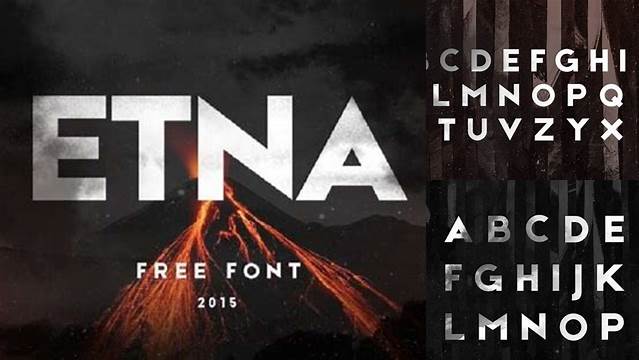
Are you looking to spice up your designs with a touch of elegance and modern flair? Then look no further than the Etna Font! This versatile typeface is a fantastic choice for various projects, from website headers to printed materials. In this comprehensive guide, we'll dive deep into everything you need to know about the Etna Font, including how to get your hands on it through a free download, explore its characteristics, and uncover some creative ways to use it. So, grab your favorite beverage, kick back, and let's explore the world of Etna Font free download!
1. Understanding the Allure of the Etna Font
Hey guys, before we jump into the nitty-gritty of downloading the Etna Font, let's talk about what makes this font so darn appealing! The Etna Font is a modern sans-serif typeface that boasts clean lines, a contemporary feel, and a touch of sophistication. It's designed to be highly readable, making it perfect for both headlines and body text. One of the key features that make the Etna Font stand out is its versatility. Whether you're working on a sleek website design, crafting eye-catching marketing materials, or simply want to add a touch of class to your personal projects, the Etna Font has got you covered. The font's design is typically described as geometric and minimalist, allowing it to blend seamlessly with various design styles. Its balanced proportions and subtle details create a visually pleasing aesthetic that's both timeless and modern. The designers of the Etna Font have clearly focused on creating a typeface that is both functional and beautiful. This dedication is evident in its well-defined letterforms and consistent spacing, which contribute to its overall readability and visual appeal. Choosing the right font can dramatically impact how your message is received. Using the Etna Font can help create a sense of professionalism, modernity, and trustworthiness. It's the kind of font that quietly elevates your designs without being overly flashy or distracting. Understanding these nuances can help you make a more informed decision about how and where to use the Etna Font in your projects. In essence, the Etna Font is more than just a collection of letters and symbols; it's a design tool that empowers you to communicate your ideas with clarity, style, and sophistication. The decision to use this font can give you a visual advantage over other fonts. So when you start the process of getting the Etna Font free download, make sure you are ready to use it to its full advantage.
3. Etna Font Characteristics: What Makes It Unique?
So, what exactly makes the Etna Font stand out from the crowd? Let's dive into its key characteristics. Firstly, it’s a sans-serif typeface, which means it doesn't have the small decorative strokes (serifs) at the ends of the letters. This gives it a clean, modern look. The Etna Font is characterized by its geometric shapes and balanced proportions. The designers of the font have carefully considered the structure of each letter, ensuring that they are visually harmonious and easily readable. This attention to detail contributes to its versatility and suitability for a wide range of applications. One of the unique things about this typeface is its readability. It's designed with legibility in mind, making it perfect for both headings and body text. This means your audience can easily understand the information you're presenting. The font often has a slightly condensed appearance, which adds to its modern feel. The subtle details, like the curve of the 'e' or the angle of the 'a', contribute to the font's overall personality and visual interest. It provides a sense of sophistication and elegance. The Etna Font is not overly stylized or flashy; it's understated and confident. This makes it a great choice when you want your message to be the focus, rather than the font itself. Finally, the versatility of the Etna Font is a huge plus. It adapts well to different design styles, from minimalist to more elaborate designs. From websites to posters to presentations, this font can be used across various platforms. The ability to adapt and evolve is a characteristic of the Etna Font free download that makes it a winner in today's design world.
4. Utilizing the Etna Font in Web Design
Guys, let's talk web design! The Etna Font can be a game-changer for your website's visual appeal and user experience. Its clean lines and modern aesthetic make it perfect for creating a sleek and professional website. When using the Etna Font in web design, consider using it for headings and subheadings. These larger text elements can instantly grab the viewer's attention and set the tone for your content. Pair the Etna Font with a more neutral body font for optimal readability. This will provide contrast while maintaining a cohesive design. Choosing the right font weight is critical. Experiment with different weights to find the perfect balance between visual impact and readability. For example, using a bold weight for headings and a regular weight for body text can create a clear visual hierarchy. The use of this font can give your site a professional look and feel. The font has a clean design that will help you create a professional impression. Another thing to consider is color contrast. The right color pairings can make the Etna Font even more impactful. Ensure that the font color contrasts well with the background color. This will improve readability. The font's adaptability also allows you to use it in multiple aspects of your site, such as navigation bars, call-to-action buttons, and other design elements. This helps maintain a consistent brand identity throughout your site. Implementing responsive design is crucial. The Etna Font should render well on all devices, from desktops to mobile phones. Test your website on different devices and screen sizes to ensure optimal readability and visual appeal. Don't forget about the user experience (UX). Think about how the font affects the way visitors interact with your site. Make sure the text is easily readable. A good user experience can boost your engagement and conversions. So before you decide to make the Etna Font free download, you should think about how the font is going to be used.
5. Etna Font for Print: Posters, Flyers, and More
Okay, let's shift gears and talk about print! The Etna Font is a fantastic choice for printed materials, such as posters, flyers, brochures, and business cards. Its clean and modern look translates well to print, making it an excellent choice for grabbing attention. When designing posters and flyers, the Etna Font can be used for headlines and key information. Its readability ensures that your message is easily understood. The font's versatility makes it suitable for various designs, from minimalist to more intricate layouts. For brochures, use the font for titles, subheadings, and body text. This creates a cohesive look and adds a touch of sophistication to your marketing materials. The Etna Font offers great flexibility, allowing you to make your print designs unique and memorable. Choosing the right font weight is important for print design, just like with web design. Choose font weights that stand out without compromising readability. In terms of color, consider the colors you are using in your printed materials. The Etna Font can be used with different colors to achieve a variety of moods and styles. If you're designing business cards, using the Etna Font can create a professional impression. It's clean lines and modern look can boost your credibility. The font can be used for your name, job title, and contact details. When designing printed materials, keep in mind the size and spacing of the text. Make sure the text is large enough to be easily read. Adjust the line spacing for optimal readability. Always do a test print. Before mass-producing your printed materials, print a sample copy to check the colors, fonts, and layout. This ensures everything looks perfect before you invest in a large print run. So after you get your Etna Font free download, consider all of the advantages.
6. Creating a Brand Identity with the Etna Font
Hey, have you ever thought about using a font to create your brand's identity? The Etna Font can play a significant role in establishing your brand's unique identity. Choosing this font can create a consistent visual experience for your audience. When using the Etna Font for branding, start by incorporating it into your logo, website, and marketing materials. This consistency helps reinforce your brand's identity and makes it more recognizable. Its modern and clean look can convey professionalism, reliability, and trustworthiness. This can be used in every aspect of your company, from your website to your marketing materials. The versatility of the Etna Font makes it suitable for a wide range of brands, from tech startups to creative agencies. Think about your brand's core values and personality. Does the Etna Font align with your brand's message? The clean and modern aesthetic of the font can work well for brands that want to convey a sense of sophistication and innovation. Consider using different font weights and styles to create a unique visual hierarchy. Experiment with different weights to highlight important information and create visual interest. Ensure consistency across all brand touchpoints. Use the font consistently across all your marketing materials, website, and social media profiles. This will help reinforce your brand's visual identity. When integrating the Etna Font into your brand, think about pairing it with other design elements, such as colors, imagery, and visual styles. This helps create a cohesive brand experience. If you want your brand to be viewed in a positive way, you can make use of the Etna Font free download and start creating a brand that people will want to use. The Etna Font can be a good option for creating a brand identity.
7. Pairing the Etna Font with Other Typefaces
Okay, let's talk about pairing fonts! The Etna Font, on its own, is great, but it can become even more dynamic when paired with other typefaces. Choosing the right font combinations is essential for creating a visually appealing design. It's crucial to select fonts that complement each other without clashing. One common approach is to pair a sans-serif font like the Etna Font with a serif font. The contrast between the two styles can create visual interest while maintaining readability. A sans-serif font is a font without decorative strokes, while a serif font has them. The Etna Font can be used for headings, while a serif font is used for body text. This can create a good balance. Another strategy is to combine the Etna Font with another sans-serif font. But, to avoid confusion, make sure you choose one that offers a clear visual contrast. This can be achieved by using different weights, styles, or widths. Consider the design's overall tone and style. The Etna Font typically lends itself well to modern and minimalist designs. So you may want to pair it with a font that shares a similar aesthetic. The best font pairings are based on the project you are doing. Make sure you are making the right choice. Using a font such as the Etna Font free download is a great start.
30. Conclusion: Unleash Your Creativity with the Etna Font
There you have it, guys! We've explored the amazing Etna Font, from free download options to creative uses. This versatile font can add a touch of elegance and modernity to any design. So go ahead, grab your Etna Font free download, and start creating! Remember to experiment, have fun, and let your creativity flow. Happy designing, and enjoy using the Etna Font! The Etna Font is a very useful font. Now go forth and design!